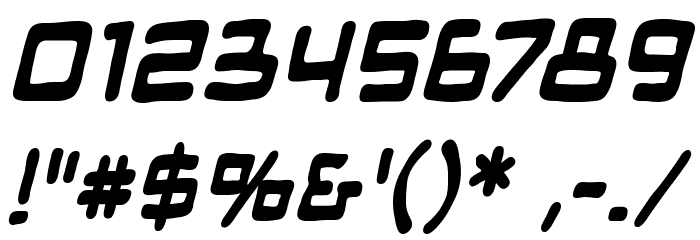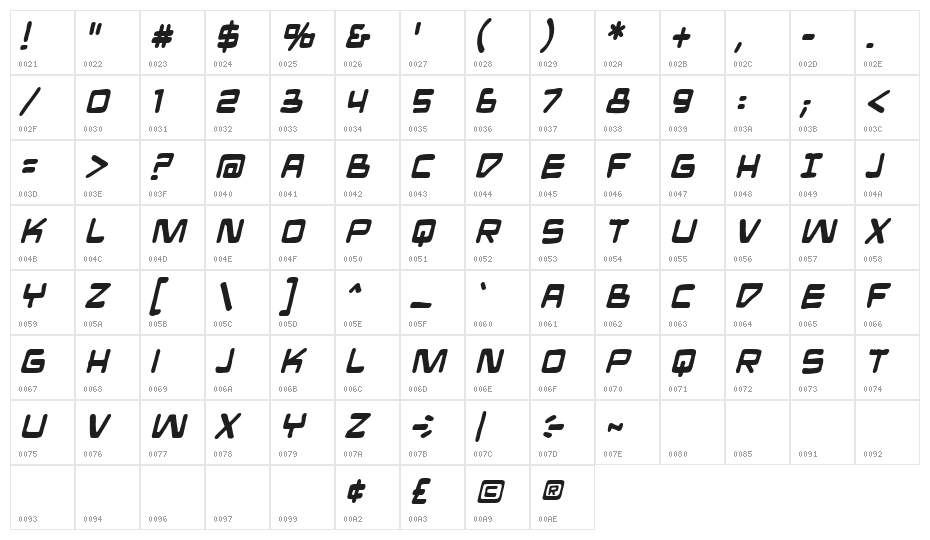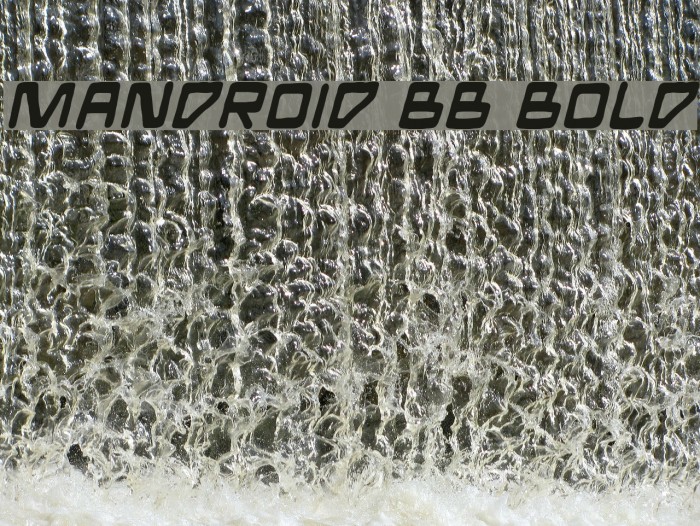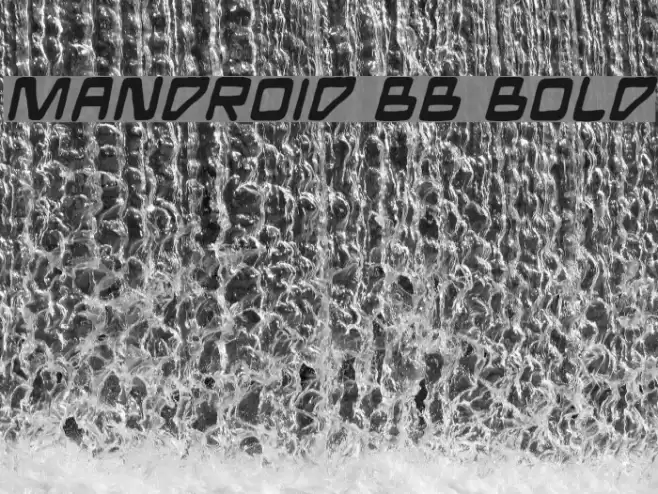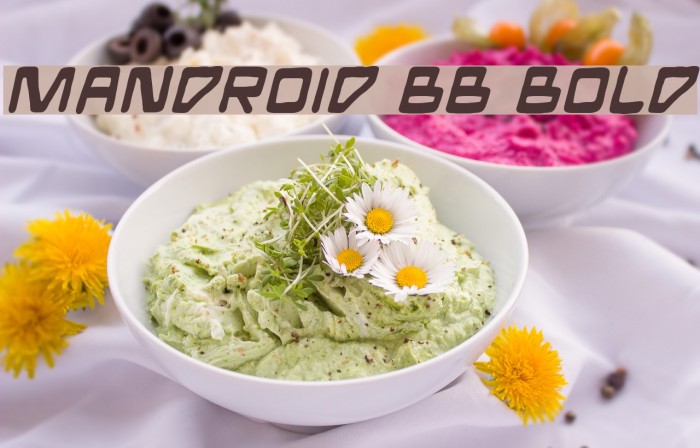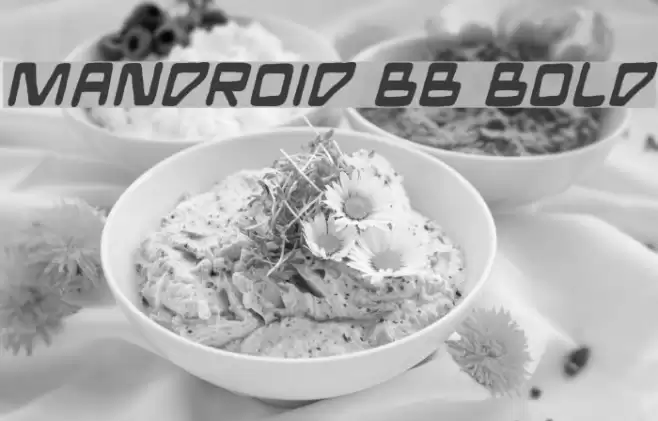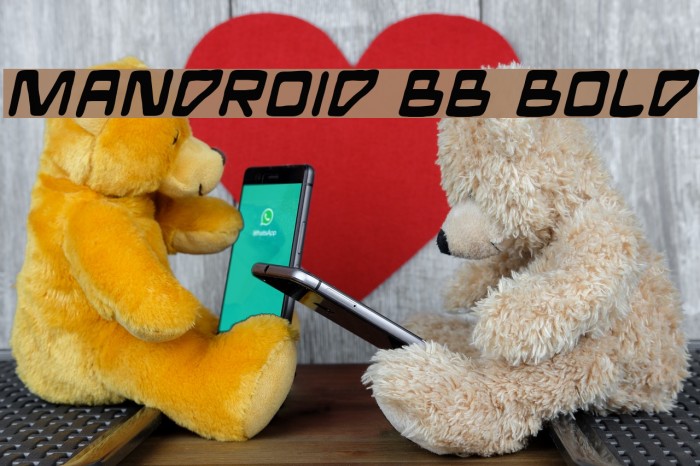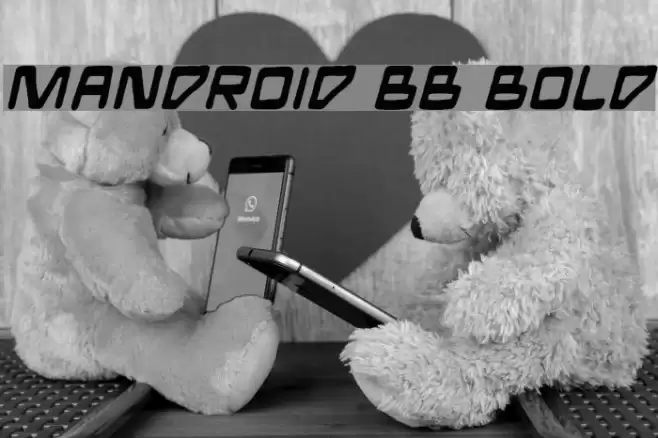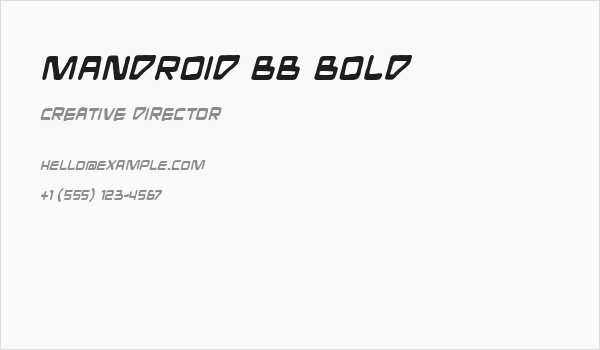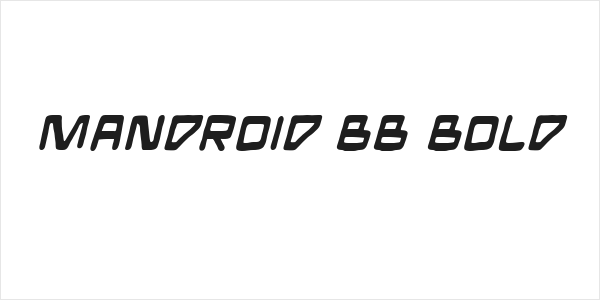
Mandroid BB Bold Font
Mandroid BB Bold Description
This font features a futuristic and bold design with rounded edges and a slightly italicized slant, giving it a dynamic and modern appearance. The characters are uniformly thick, providing a consistent and strong visual impact. The uppercase and lowercase letters maintain a cohesive style, with the lowercase letters being slightly smaller but equally bold. The numerals are clear and distinct, matching the overall aesthetic of the alphabet. Special characters are included, maintaining the same bold and rounded style, ensuring versatility in various design applications.